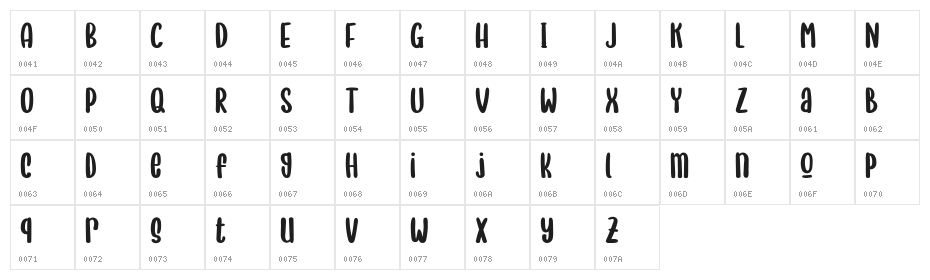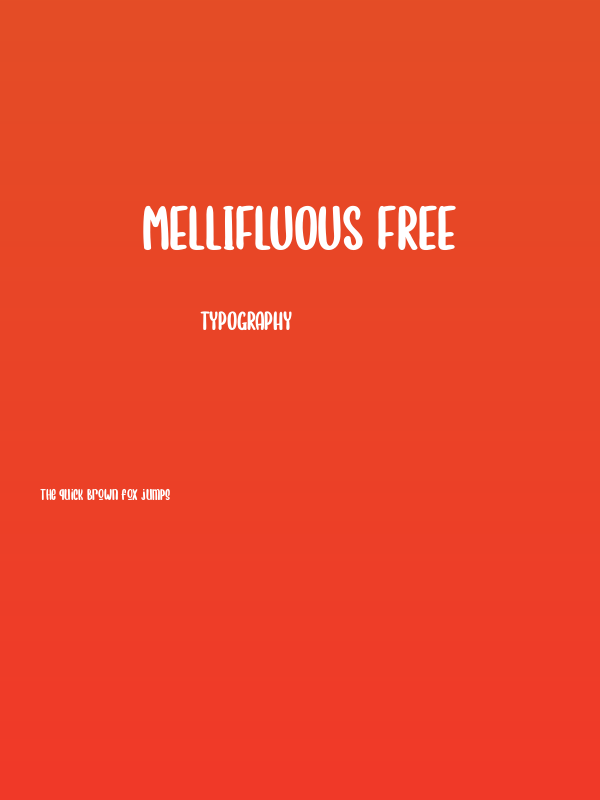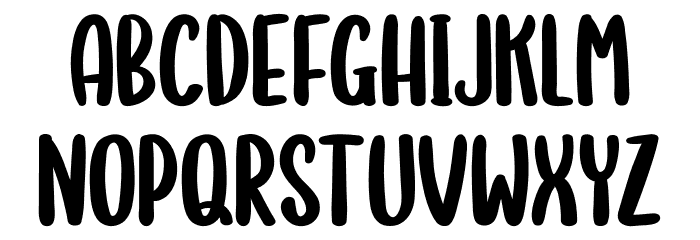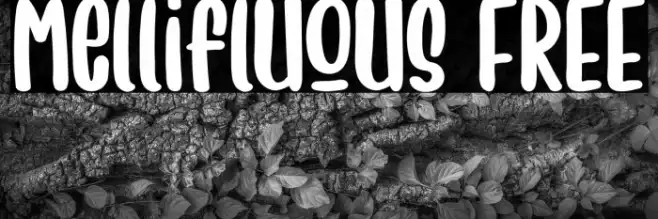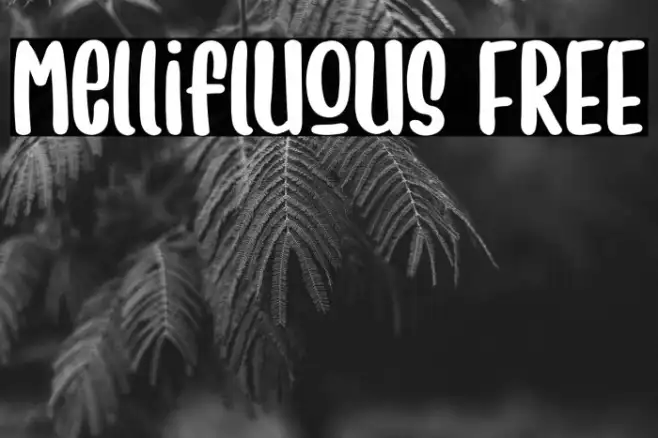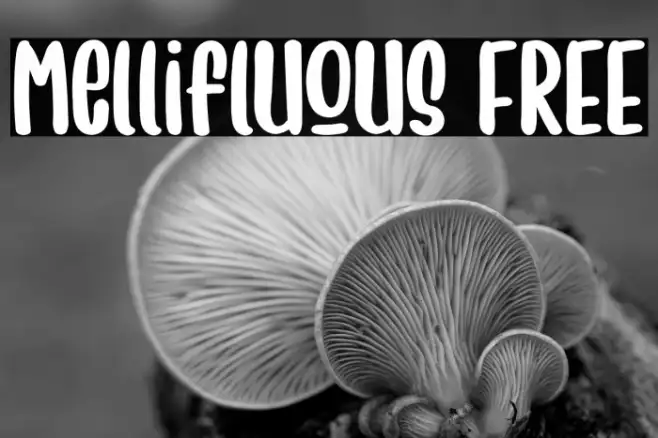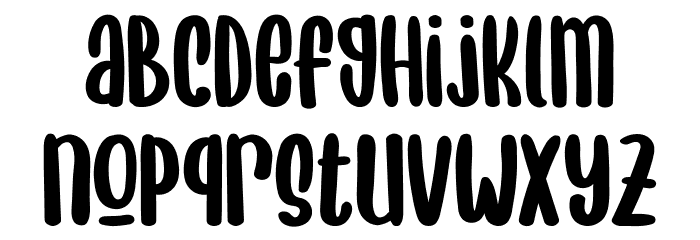
Mellifluous FREE Font
Mellifluous FREE Description
This font features a playful and bold design with rounded edges and a slightly condensed form. The characters are uniformly thick, giving it a strong presence and making it highly legible. The uppercase and lowercase letters maintain a consistent style, with the lowercase letters slightly shorter in height. The numbers and special characters are designed to match the overall aesthetic, ensuring a cohesive look across all text elements. This font's unique style is both modern and approachable, making it suitable for a variety of creative applications.
| Proposed Projects | Ideal for children's books, playful branding, posters, and social media graphics. |